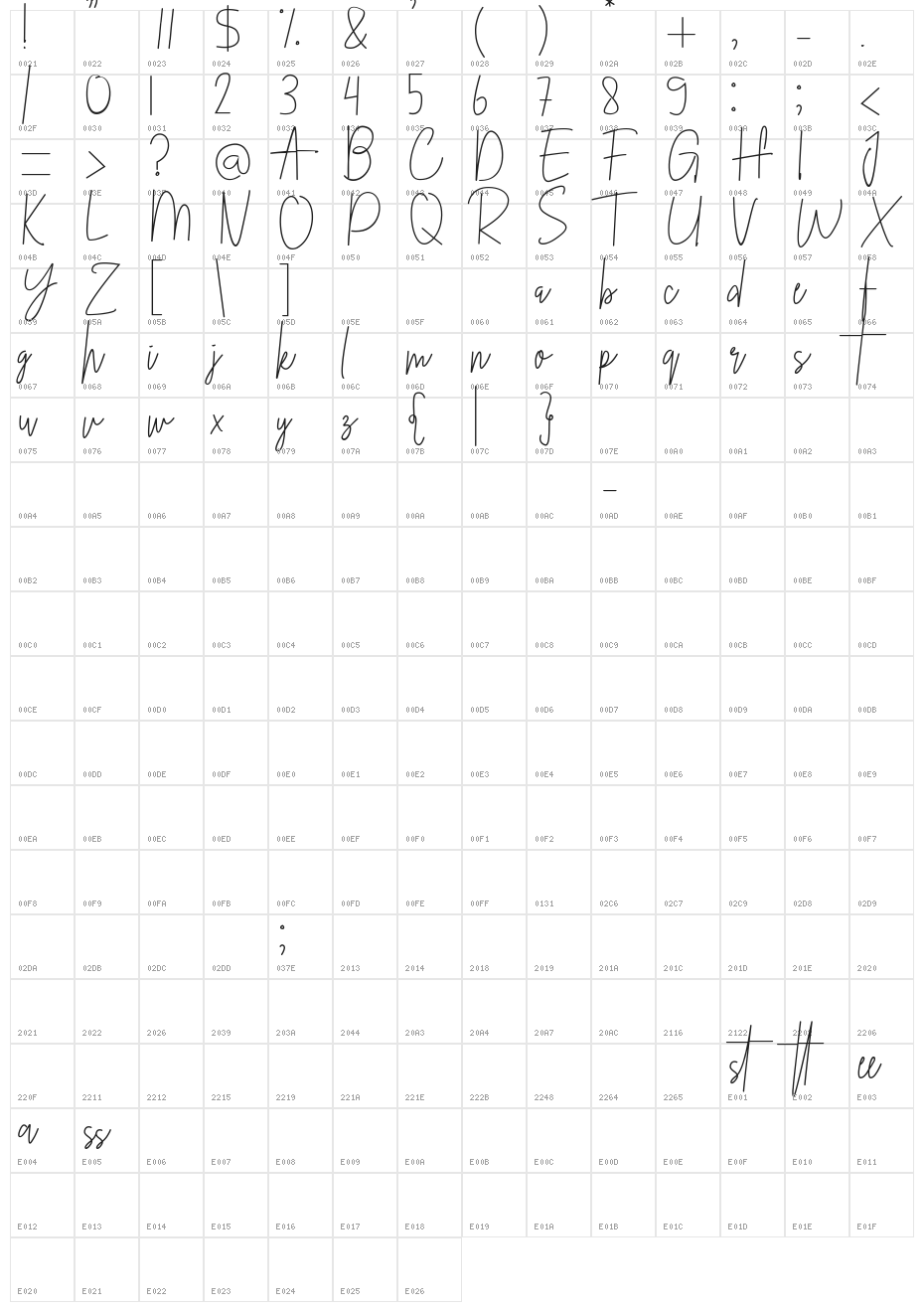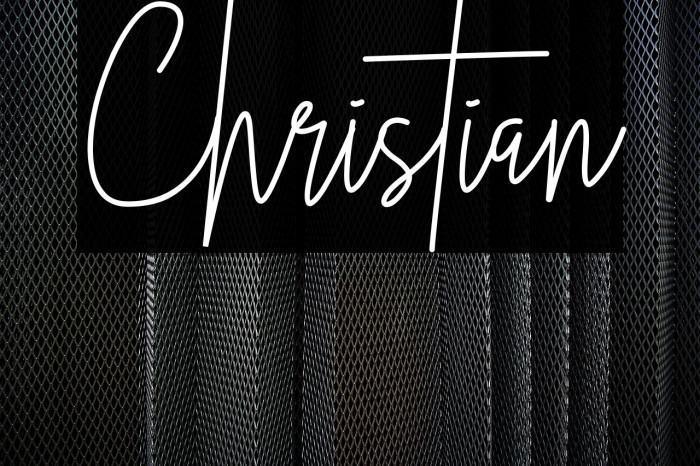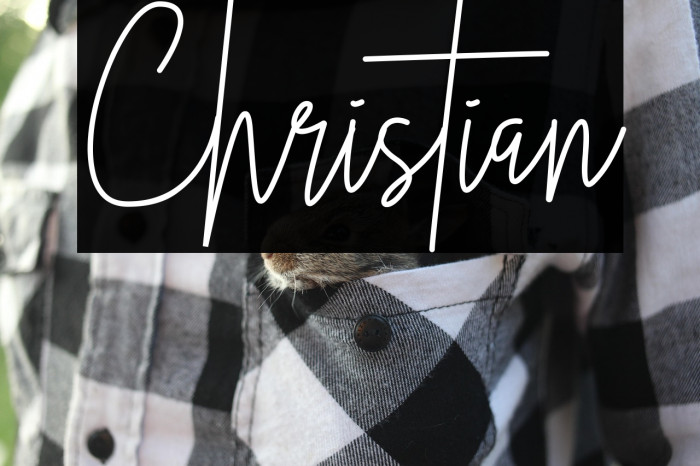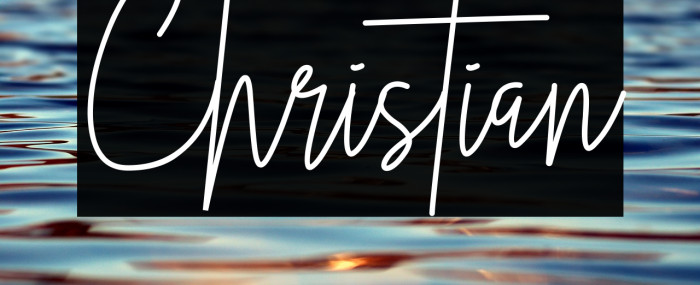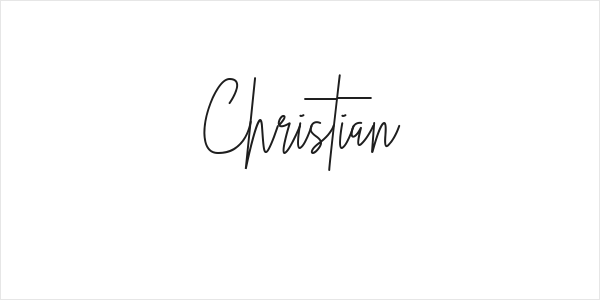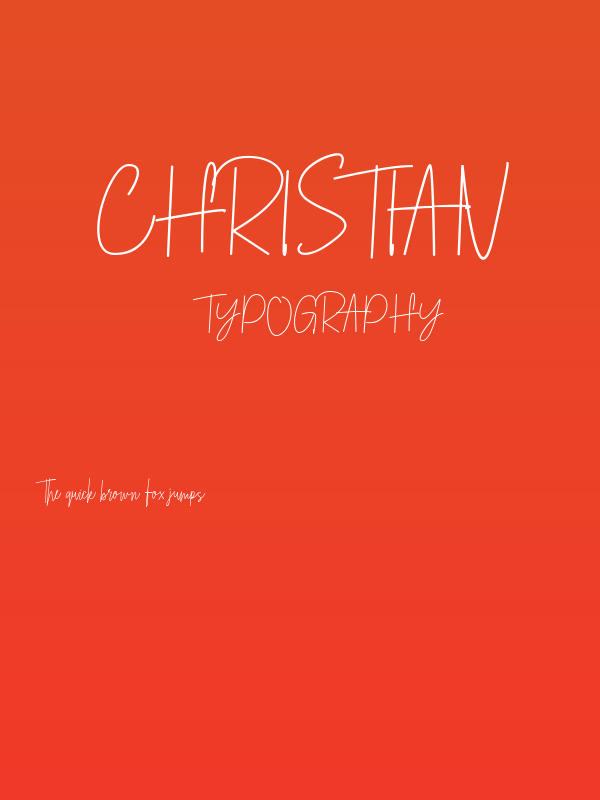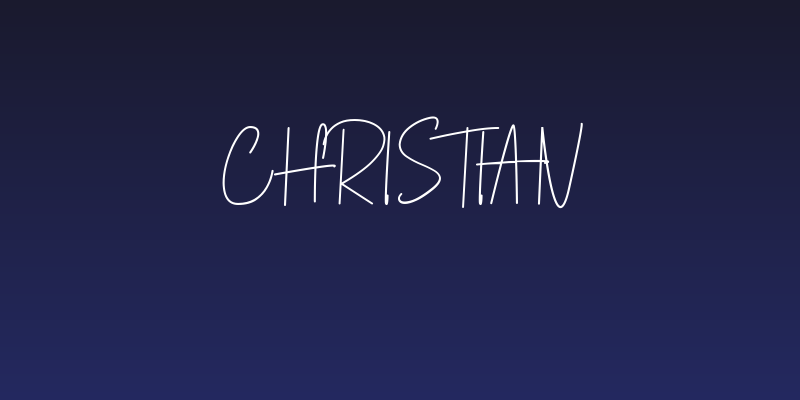
Christian Font
Christian Description
This font features a playful and casual handwritten style, characterized by its fluid and continuous strokes. The uppercase letters are tall and slender, with a slight slant that adds a dynamic feel. The lowercase letters maintain a consistent flow, with some characters extending below the baseline, enhancing its handwritten authenticity. Numbers and special characters are crafted with the same lively spirit, ensuring a cohesive look across all elements. The overall appearance is informal yet stylish, making it suitable for creative and personal projects.
| Overall Style | Casual, Playful |
| Use Case | Logos, Headlines, Informal Text |
| Proposed Projects | Ideal for greeting cards, personal invitations, social media graphics, and creative branding. |